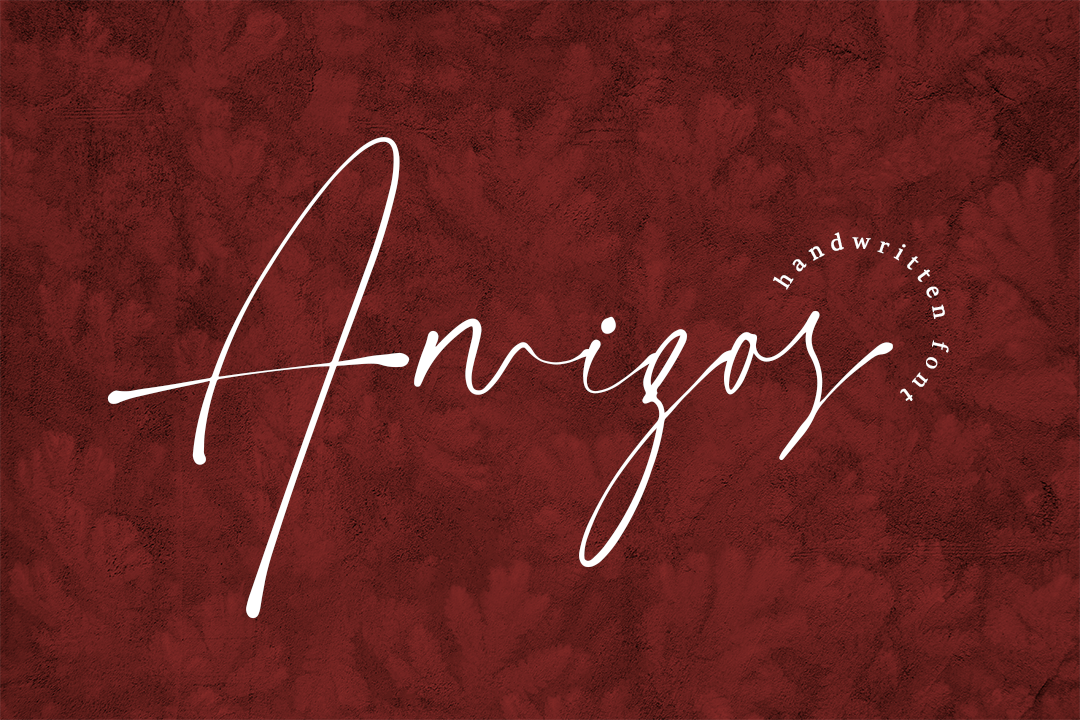
Amigos | Handwritten Font
Hi! Introducing my newest font called Amigos.
As a friend Amigos is a solution for everything you need, coming up with elegant and classy handwritten styles. Amigos will complement your design projects such as business cards, invitations, titles, mockups, etc. Make sure you have this font and make your design even more stunning!